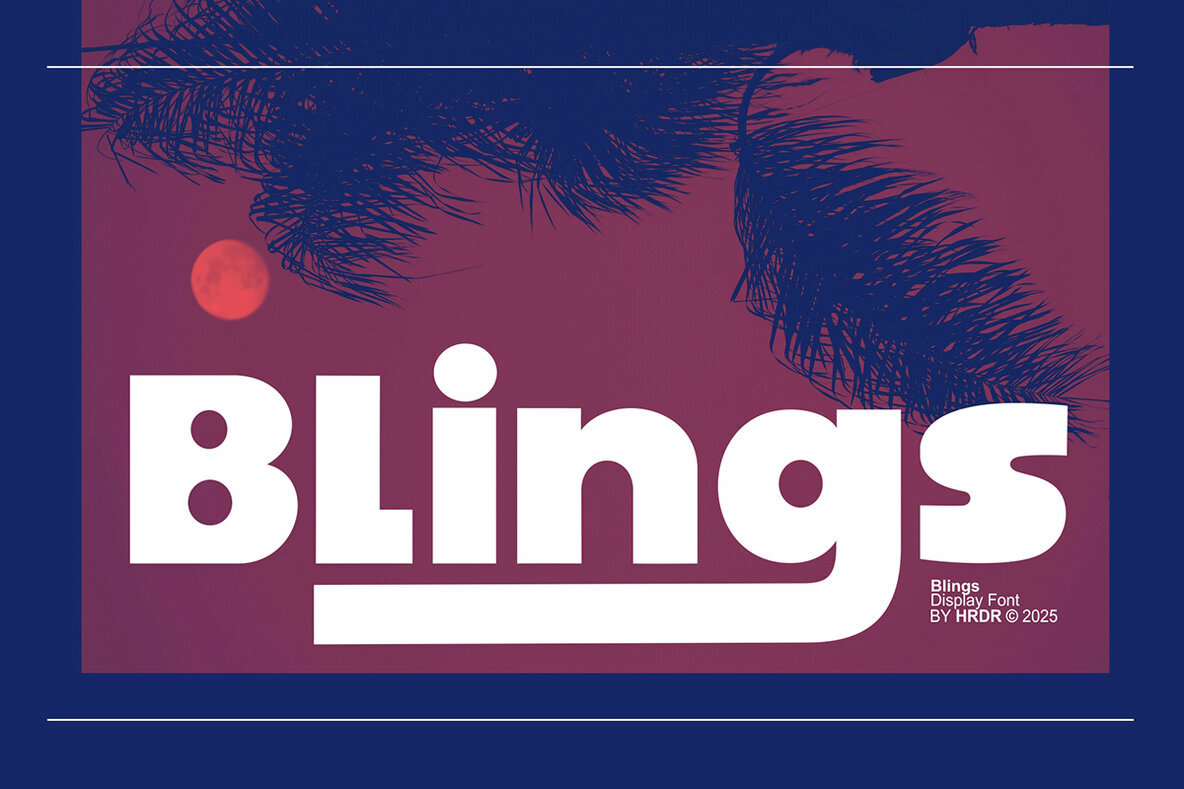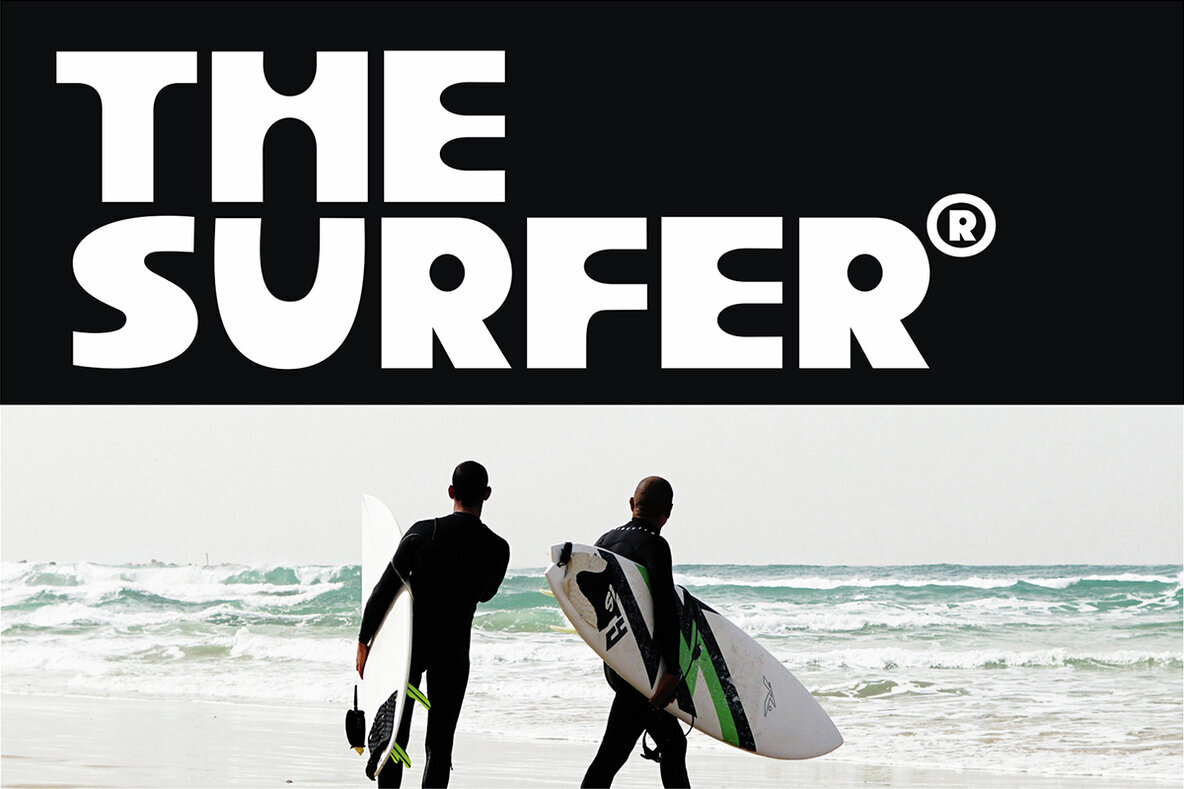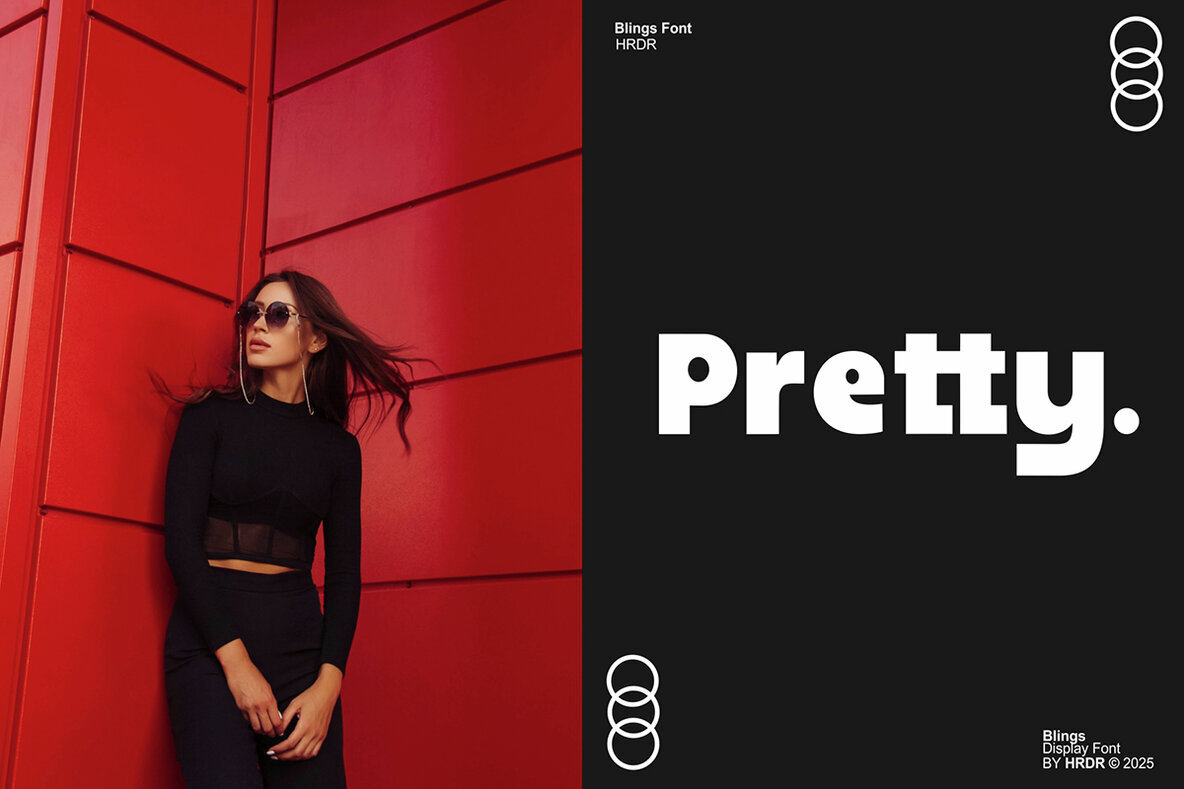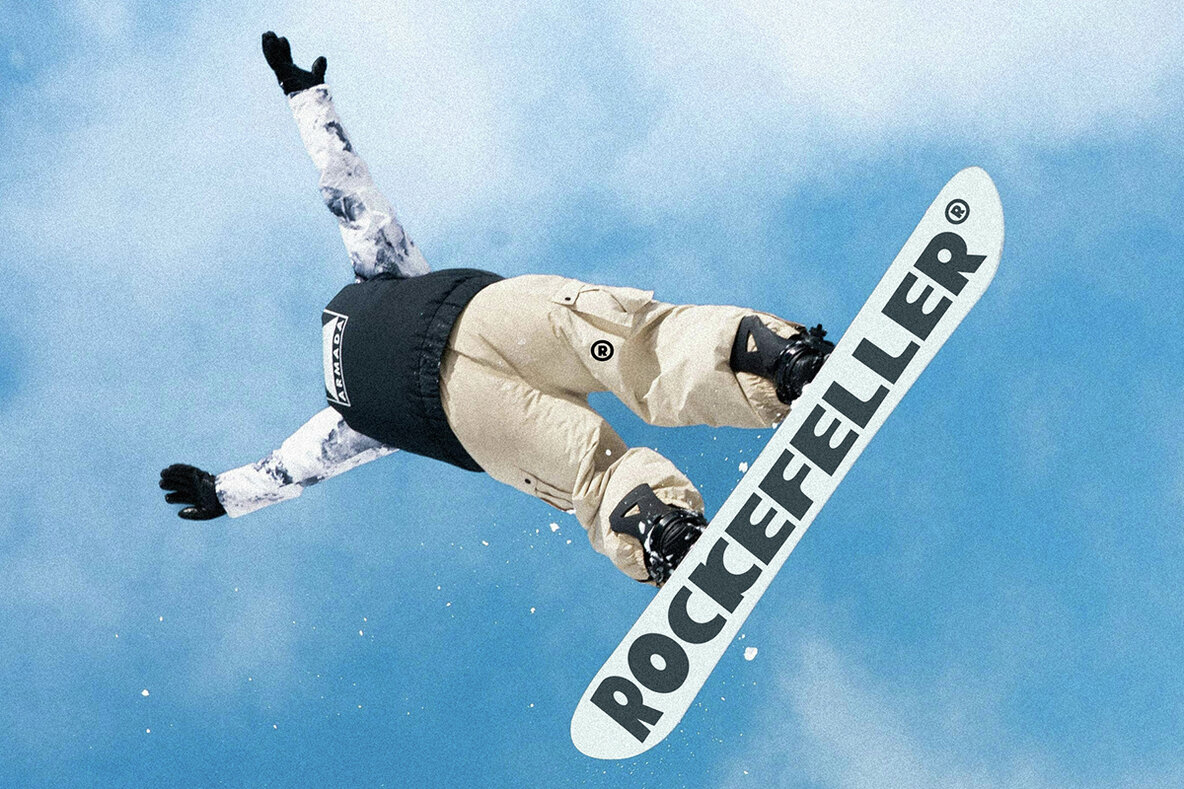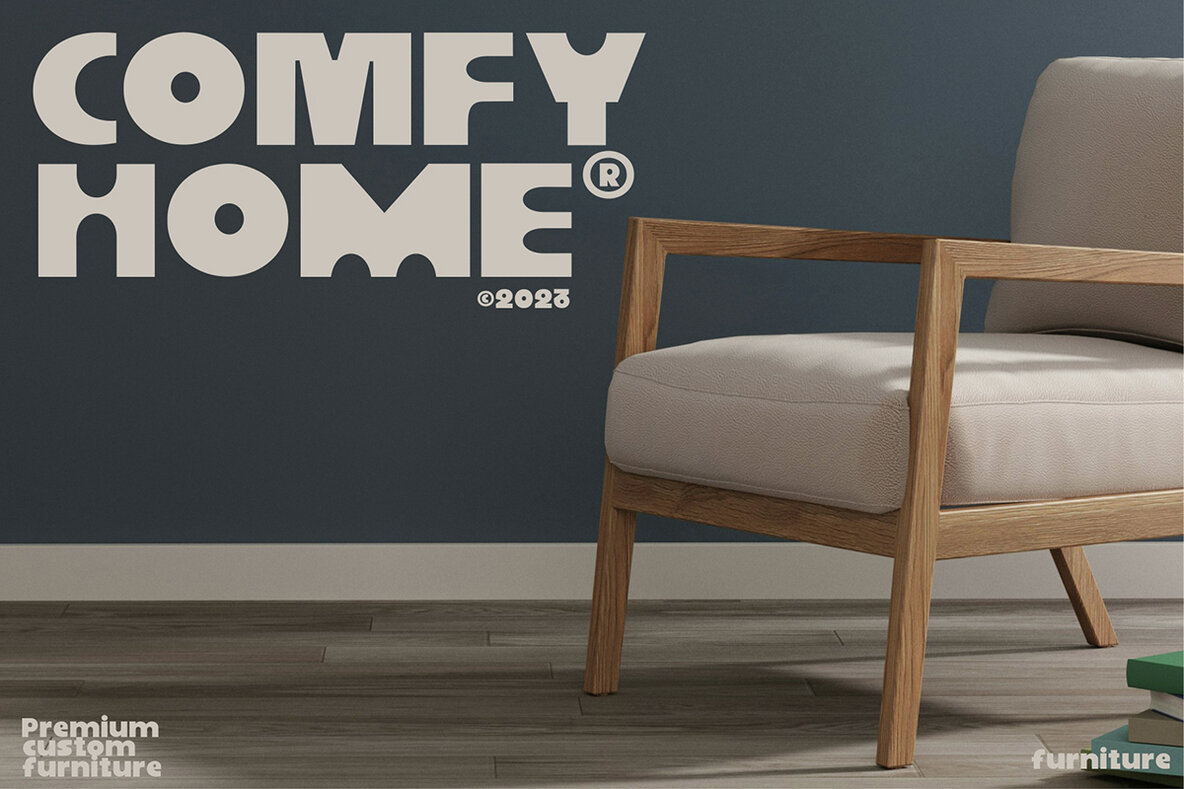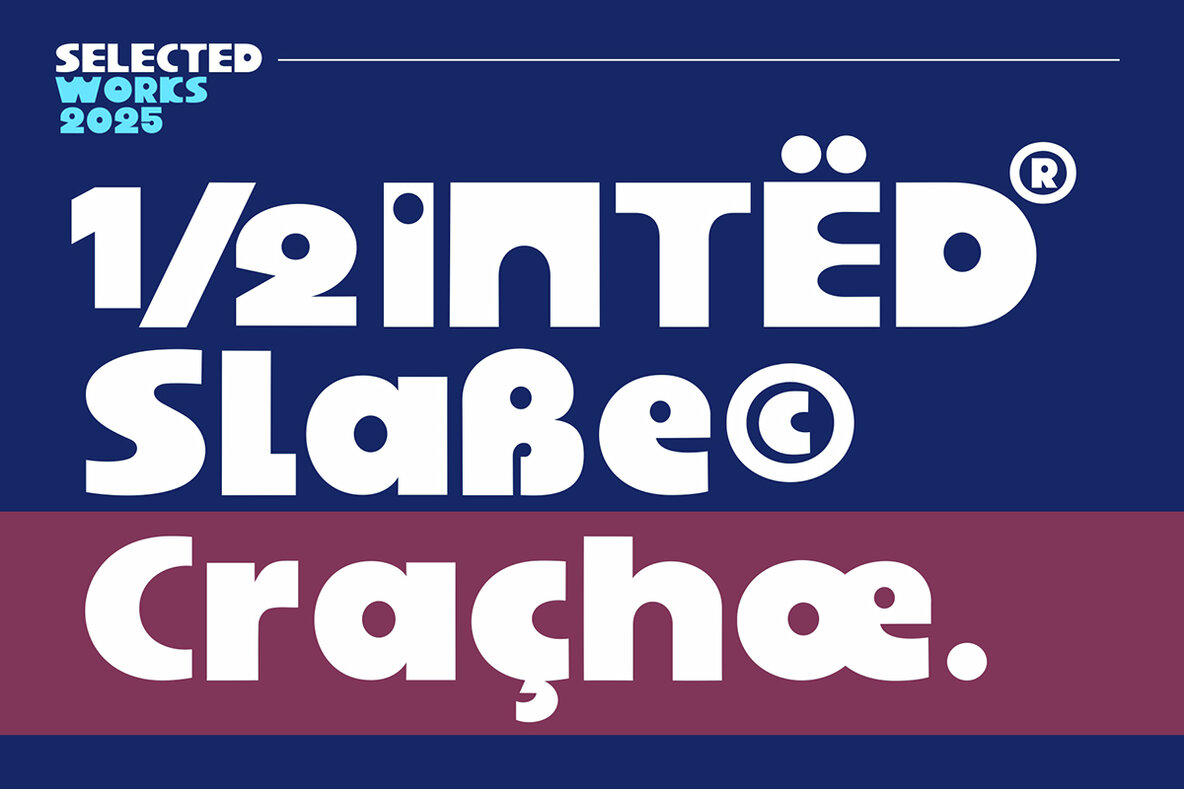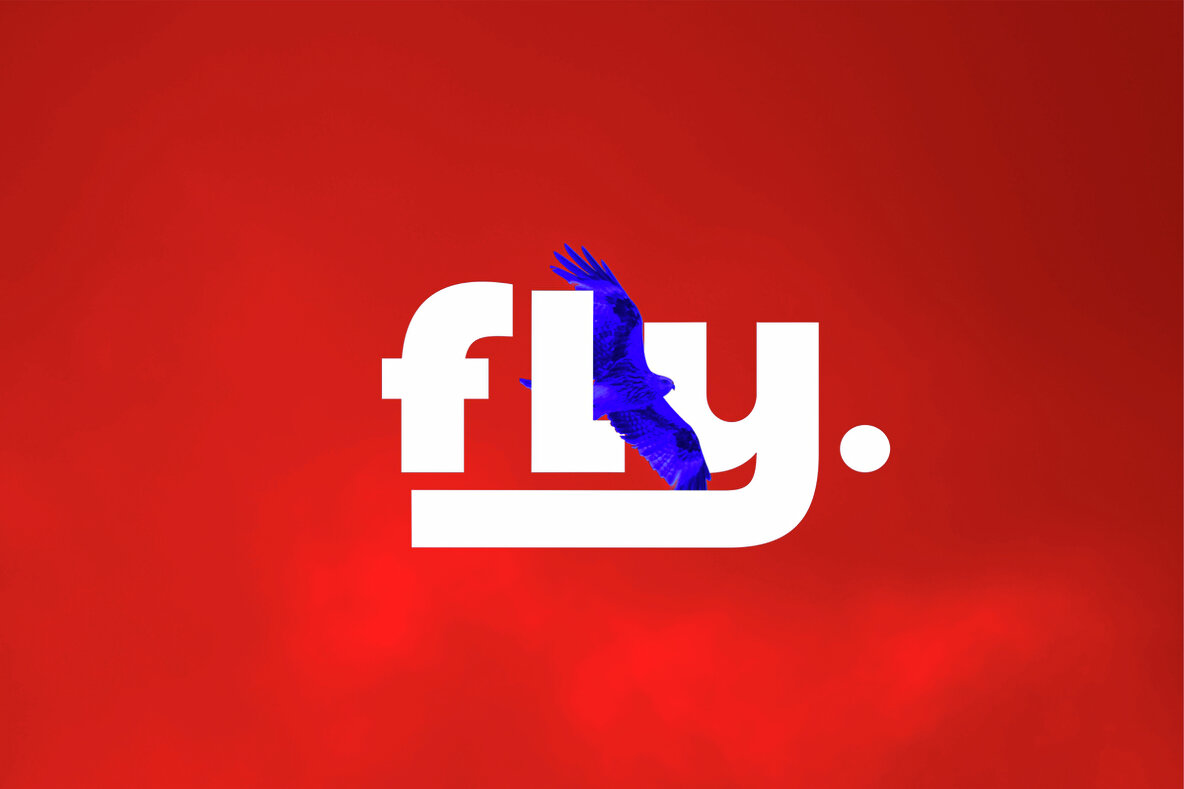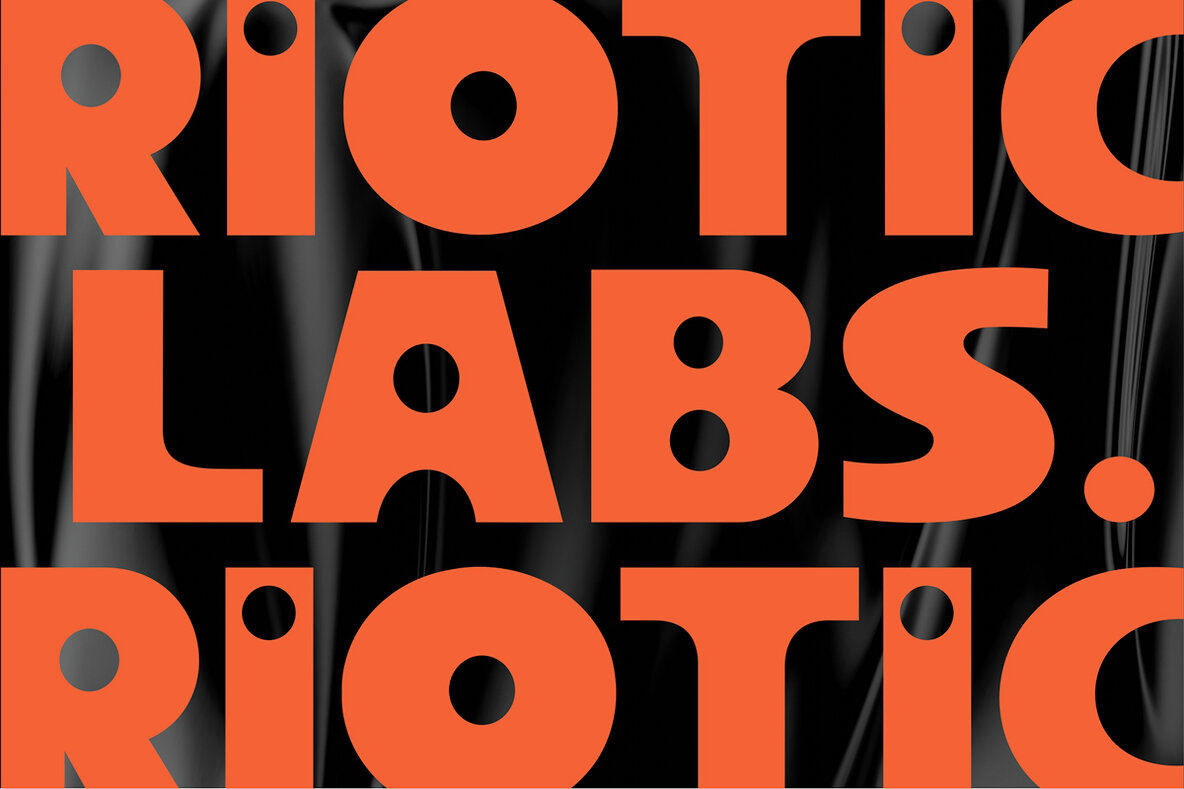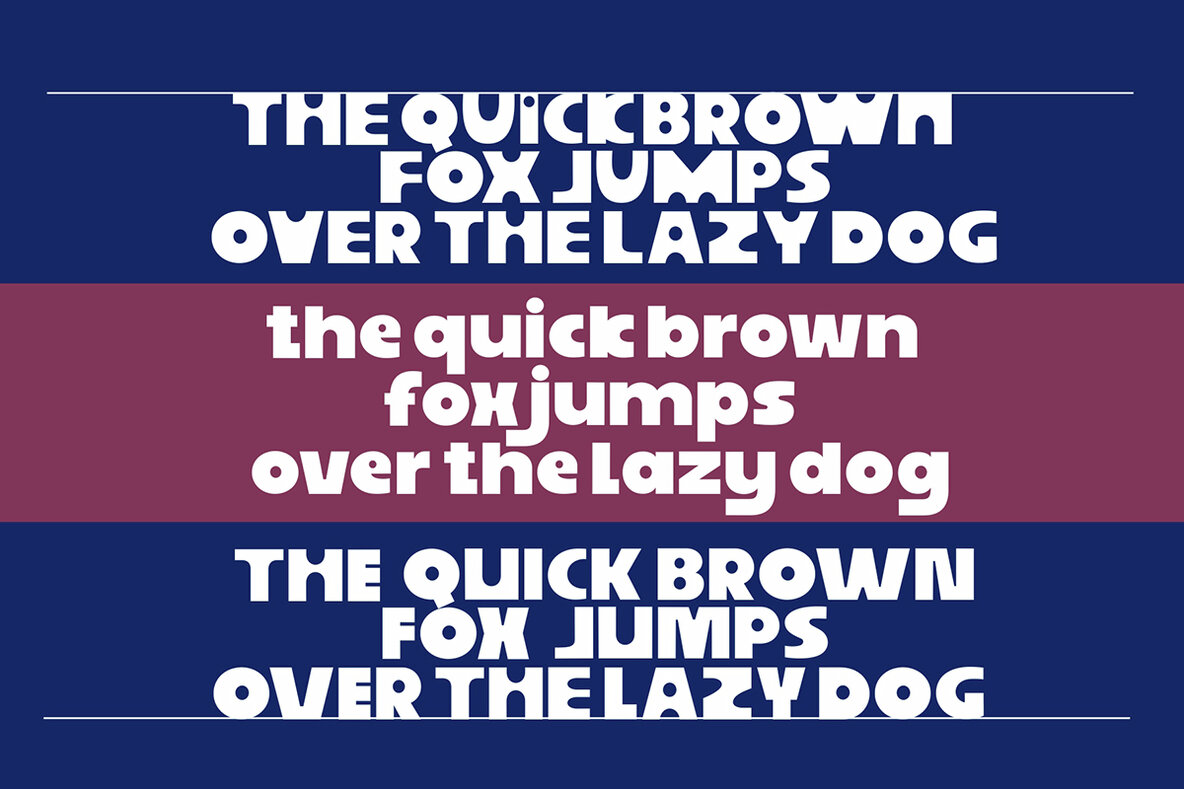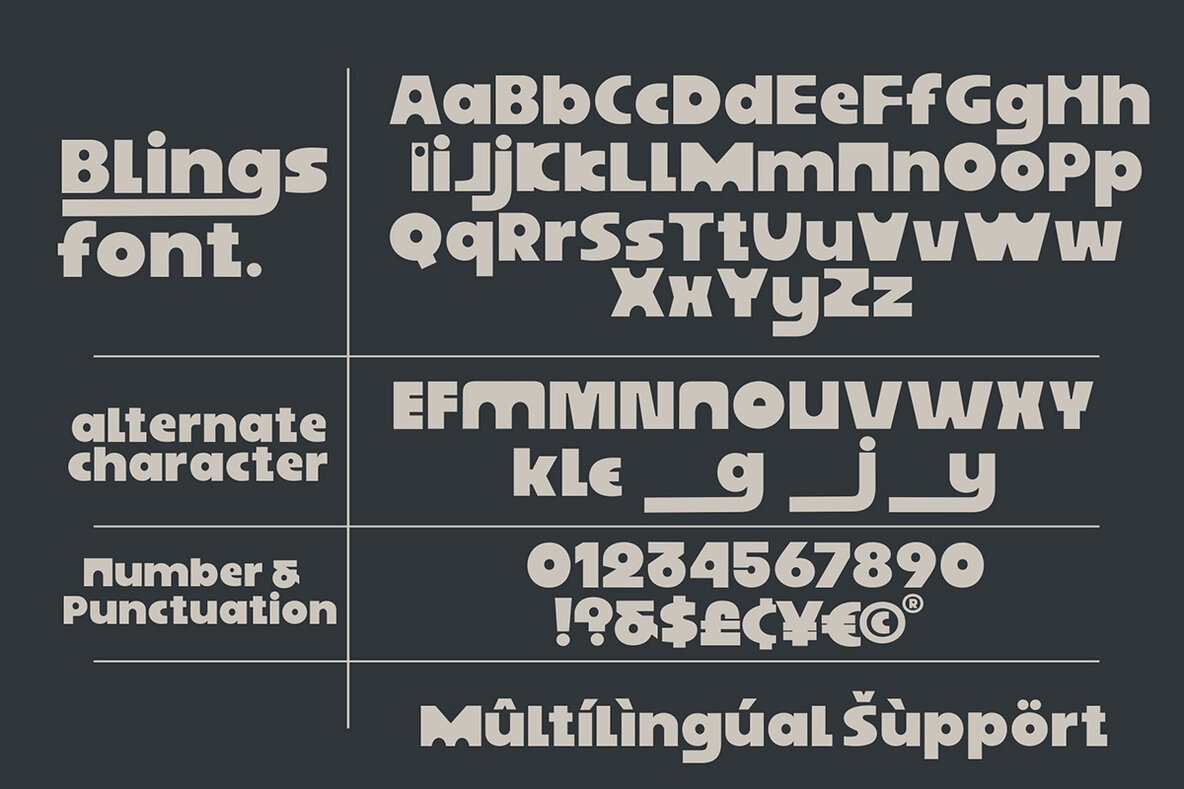
Blings
Discover Blings, a chic and contemporary sans serif display font that blends elegance with modernity. With its sleek and stylish design, Blings is perfect for a range of creative projects. Whether you're crafting a logo, designing headlines, or curating social media posts, this font elevates the aesthetic with its classy and up-to-date feel. Ideal for branding, Blings finds its place in invitations, weddings, advertisements, product packaging, and more.Blings: Modern Display Sans Serif Font